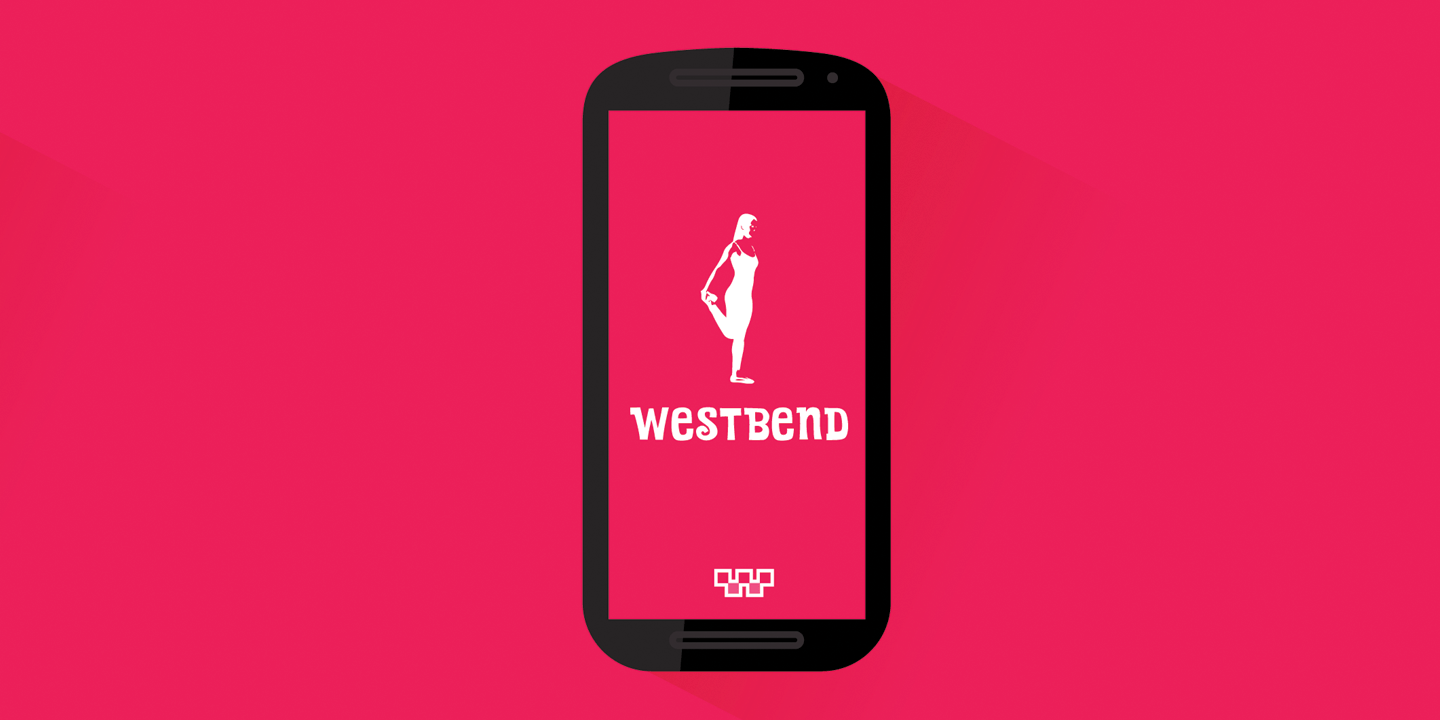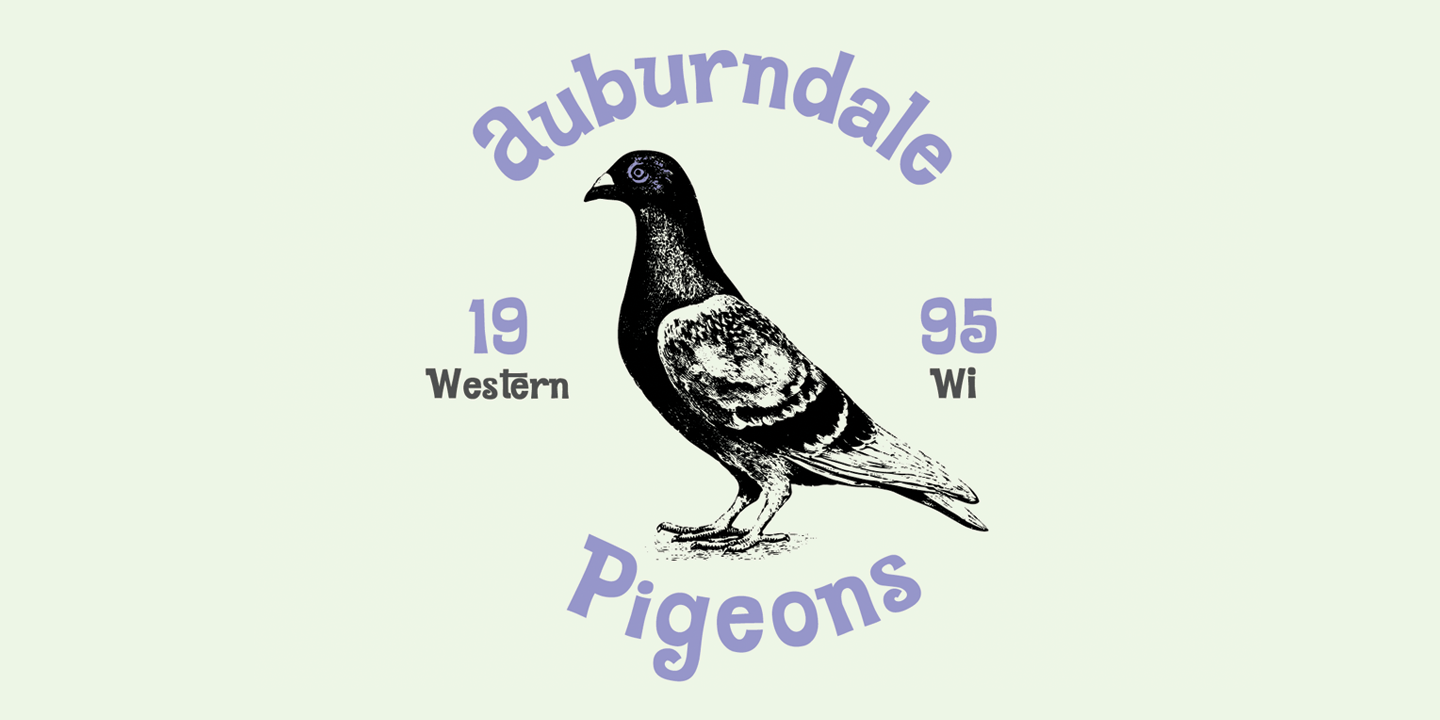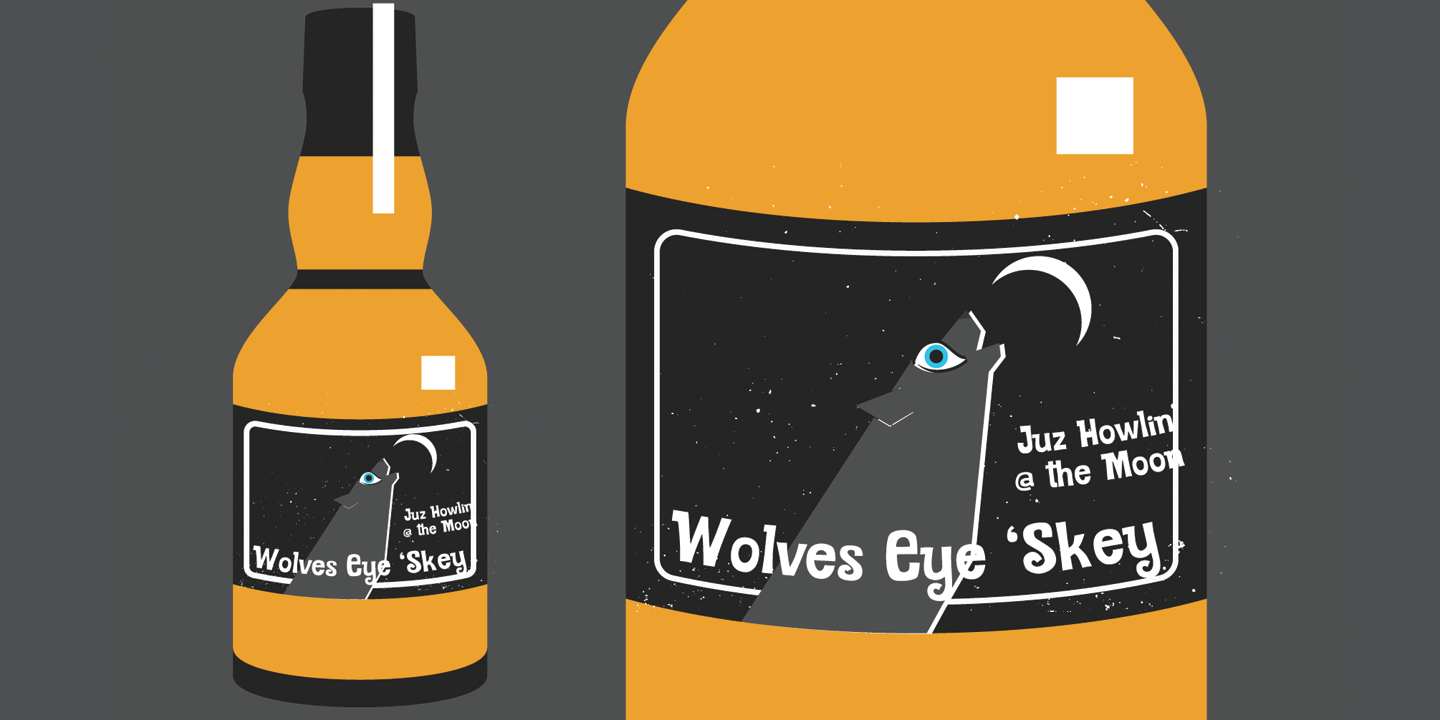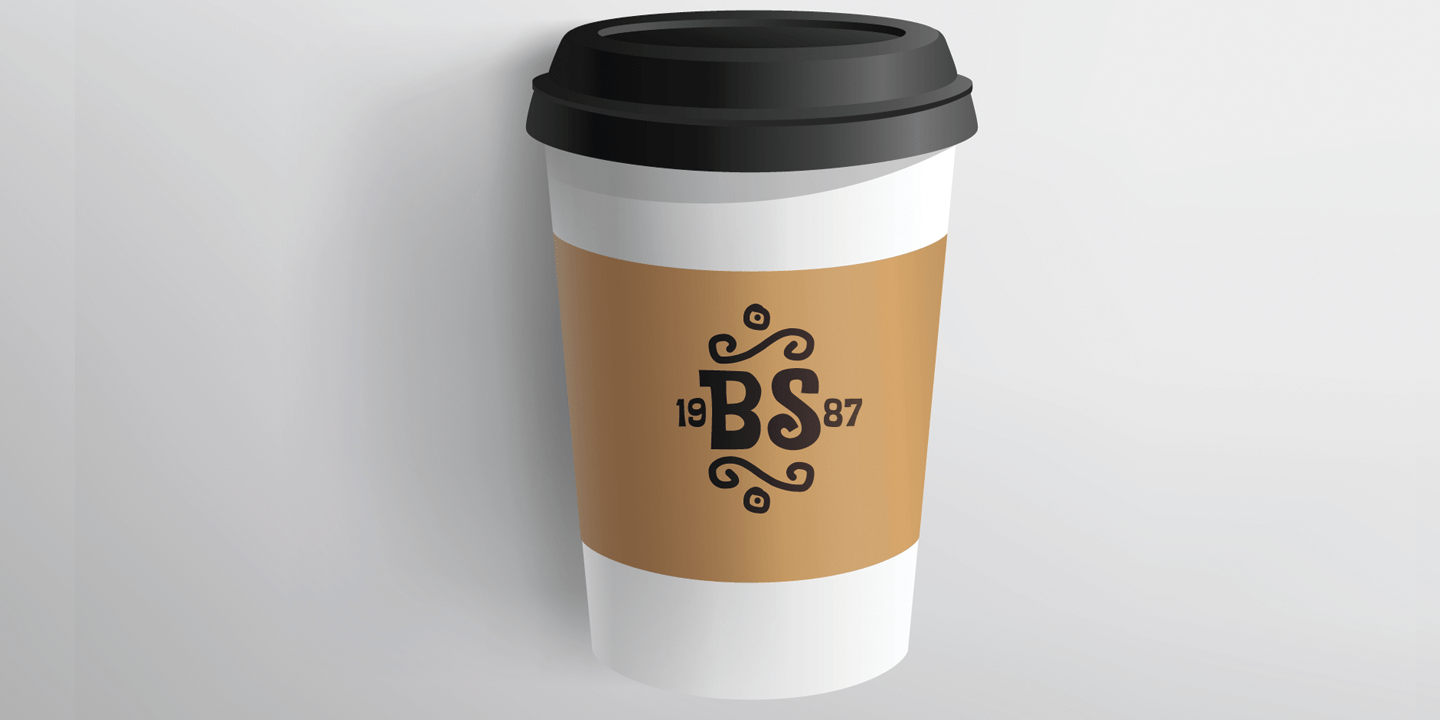
About 500 Guitars
A chunky, whimsical number that strikes just the right chord for modern and retro projects. Loaded with stylistic alternatives, ligatures and Vietnamese support.